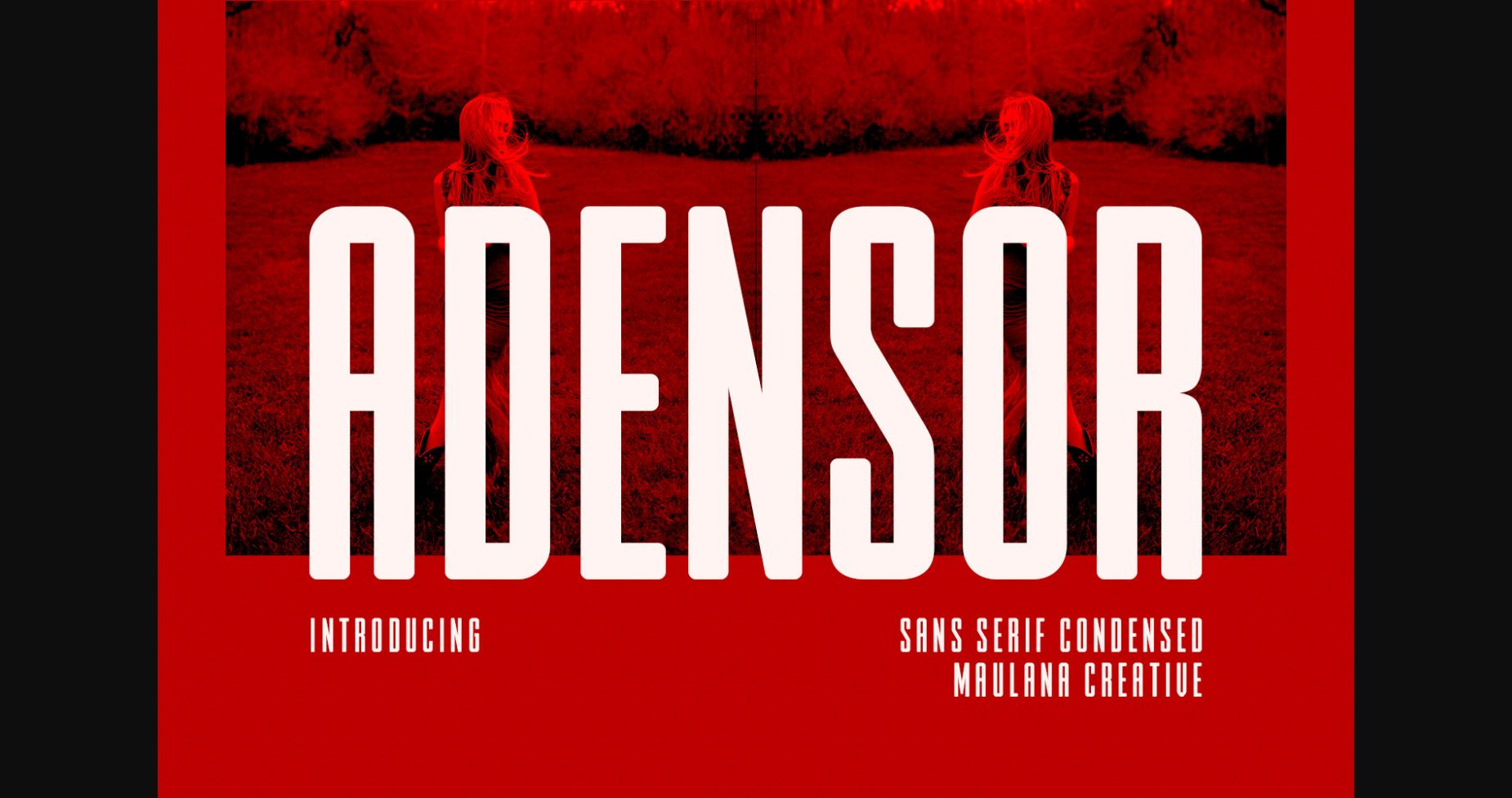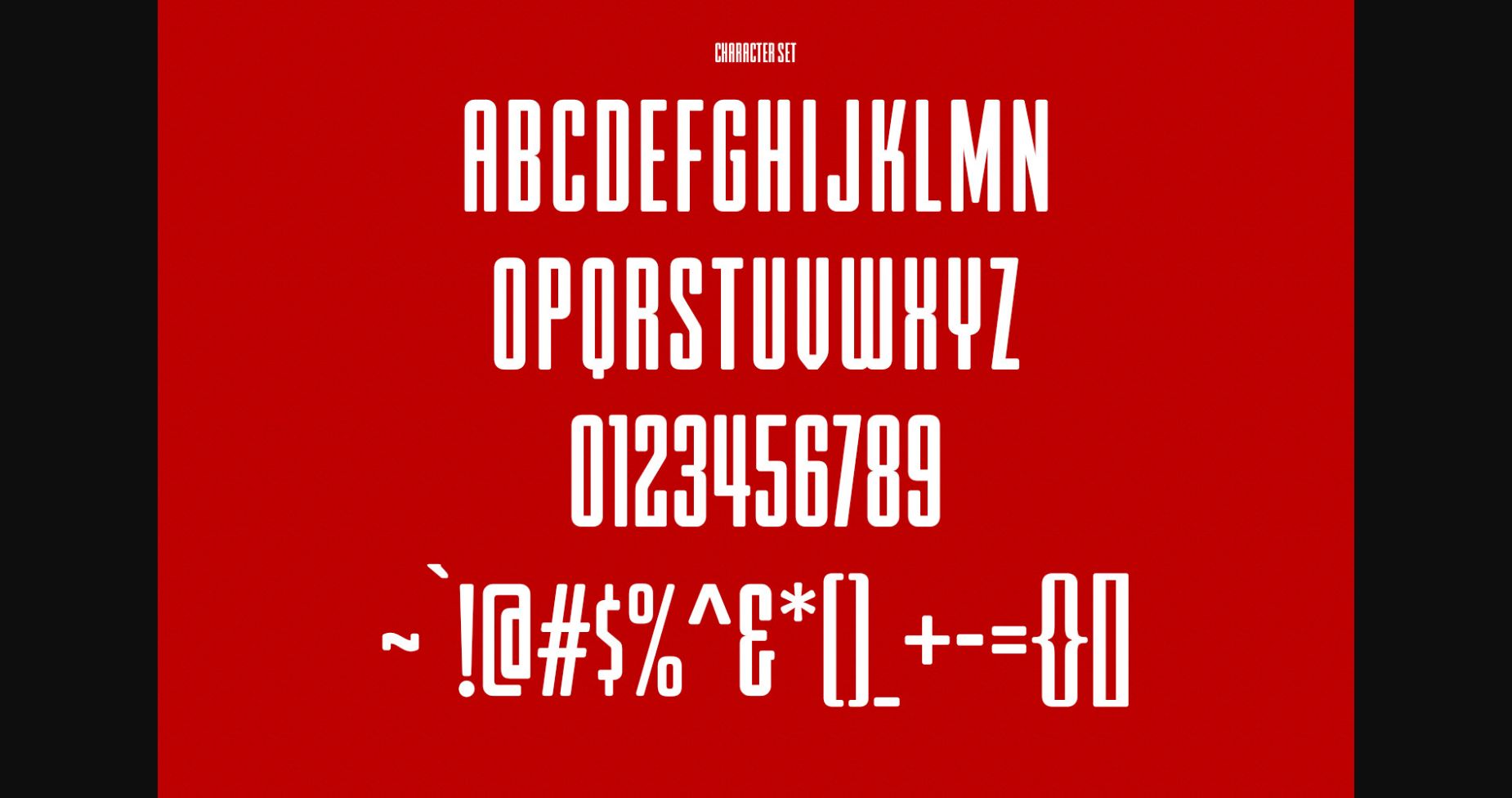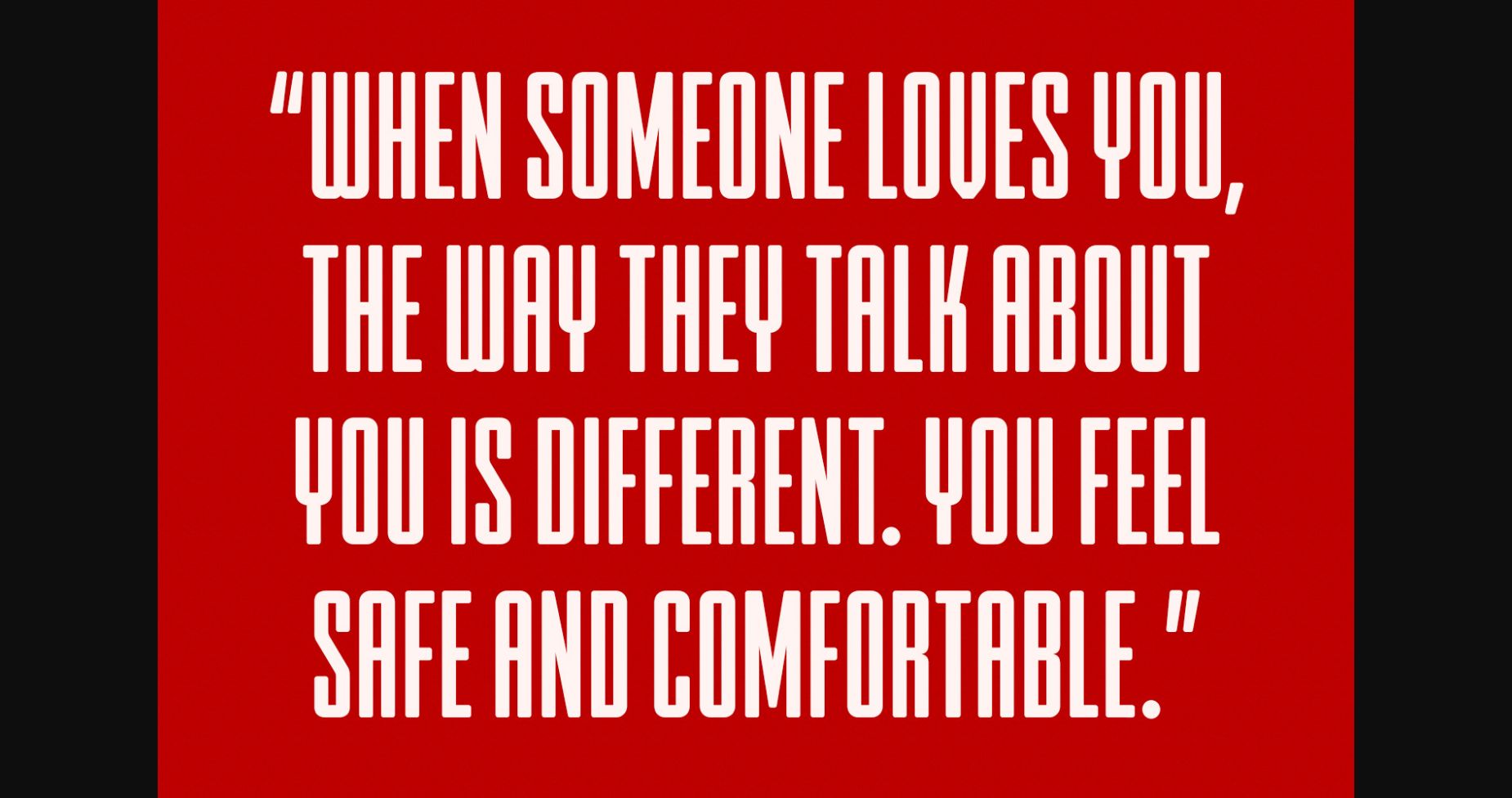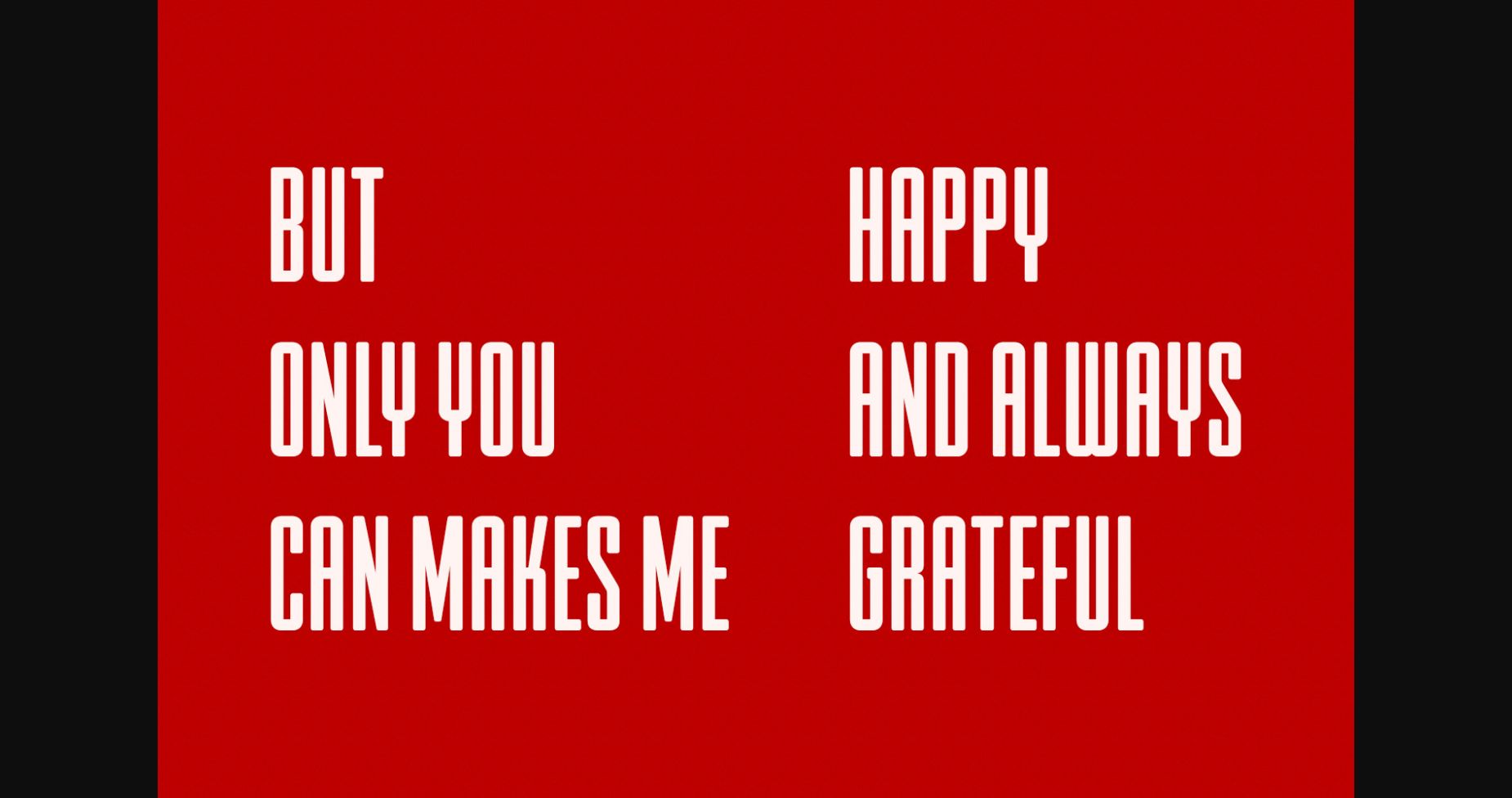
About Adensor Font
Adensor is a modern condensed sans serif font with medium contrast strokes, a fun character with a bit of ligature, and alternates to give you extra creative work. Adensor is good for logo design, social media, movie titles, book titles, short text, and even long text, and good for your secondary text with a sans or serif. Make stunning work with Adensor font.